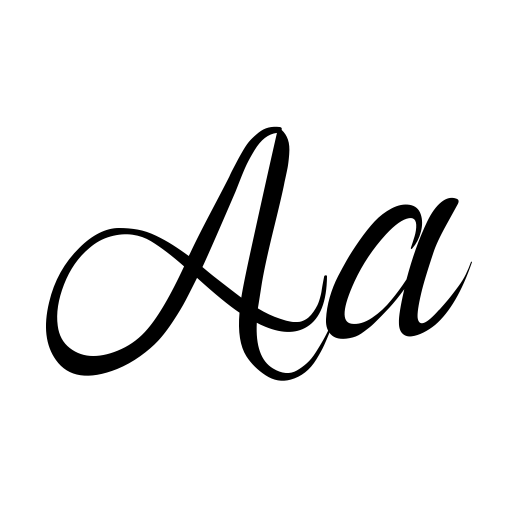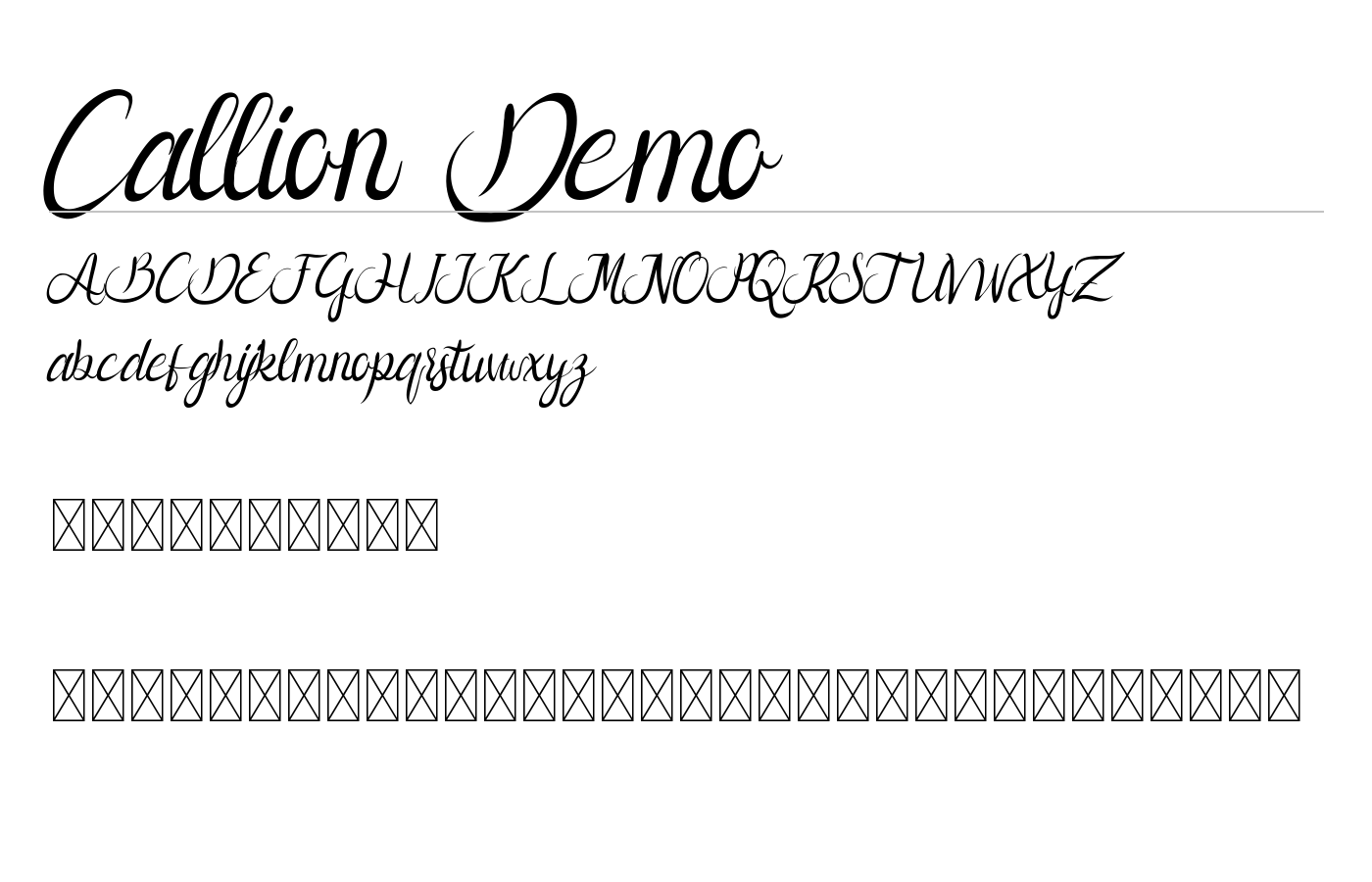
Callion Demo is an elegant script font characterized by its smooth, flowing strokes and refined calligraphic style. With its thin and slightly varied line weight, it exudes a graceful, sophisticated feel perfect for invitations, branding, and decorative text where a touch of classic charm and personality is needed. This font works best in large sizes to showcase its delicate details and stylish letterforms.
Callion Demo Font
About Callion Demo Font
| Font family | Callion Demo Font |
| Designer | Aghnia Nurul Yasmine |